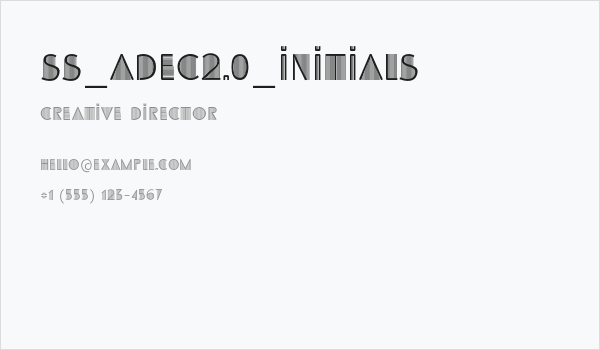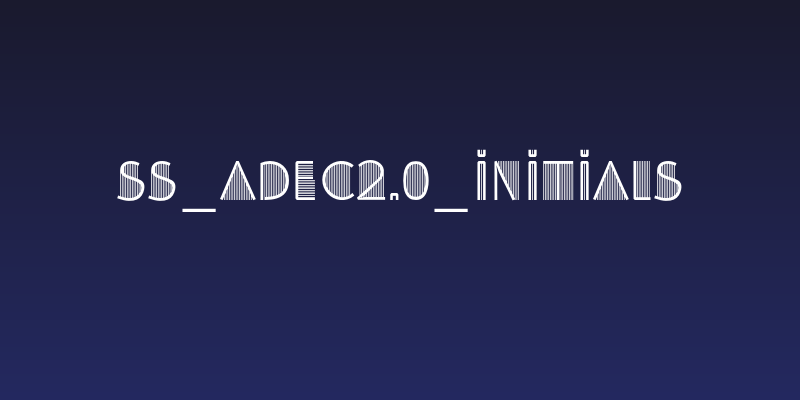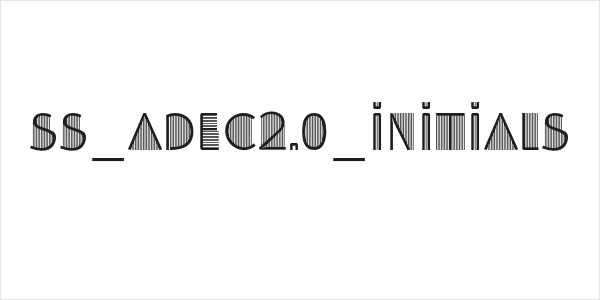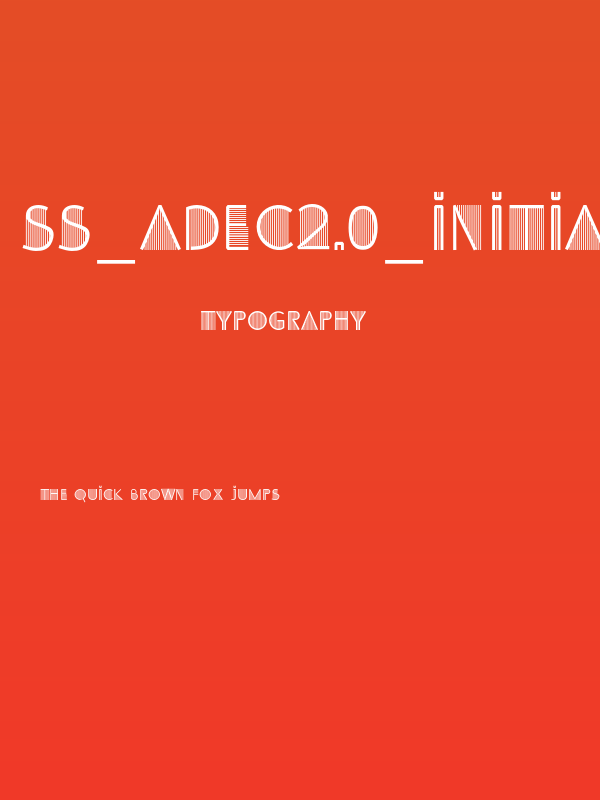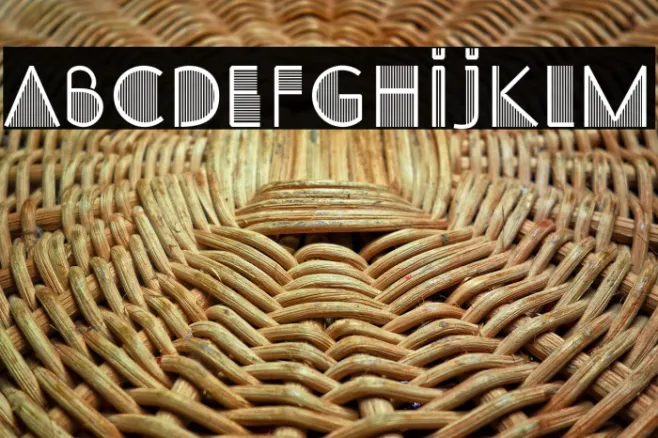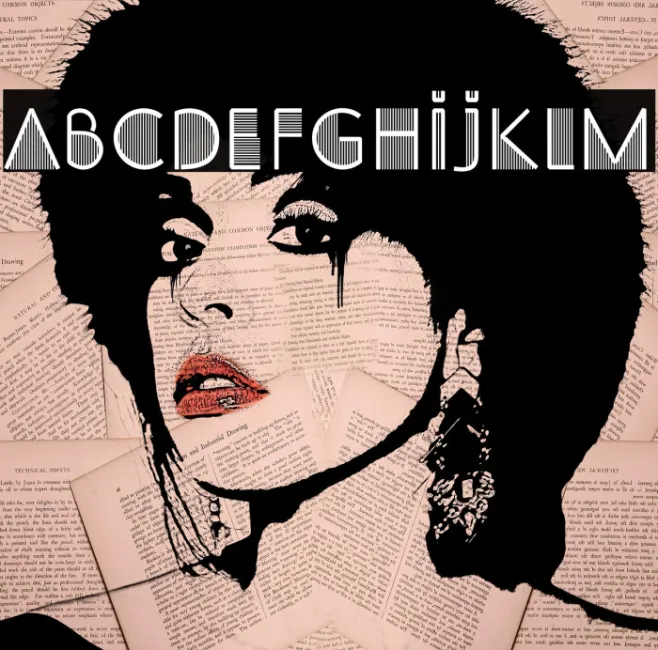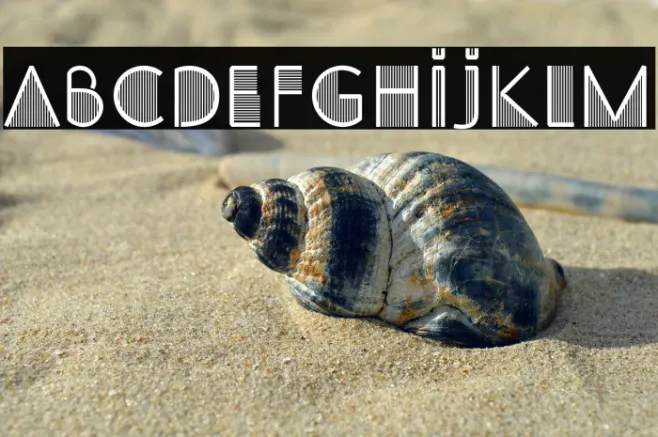
SS_Adec2.0_initials Font
SS_Adec2.0_initials Description
This font features a striking and bold design with a unique striped pattern within each character, giving it a distinct and modern appearance. The uppercase letters are geometric and angular, with a consistent use of vertical lines that create a sense of rhythm and movement. The lowercase letters maintain this aesthetic, providing a cohesive look across the typeface. Numbers and special characters follow the same design principles, ensuring uniformity. The font's style is eye-catching and ideal for making a strong visual impact.